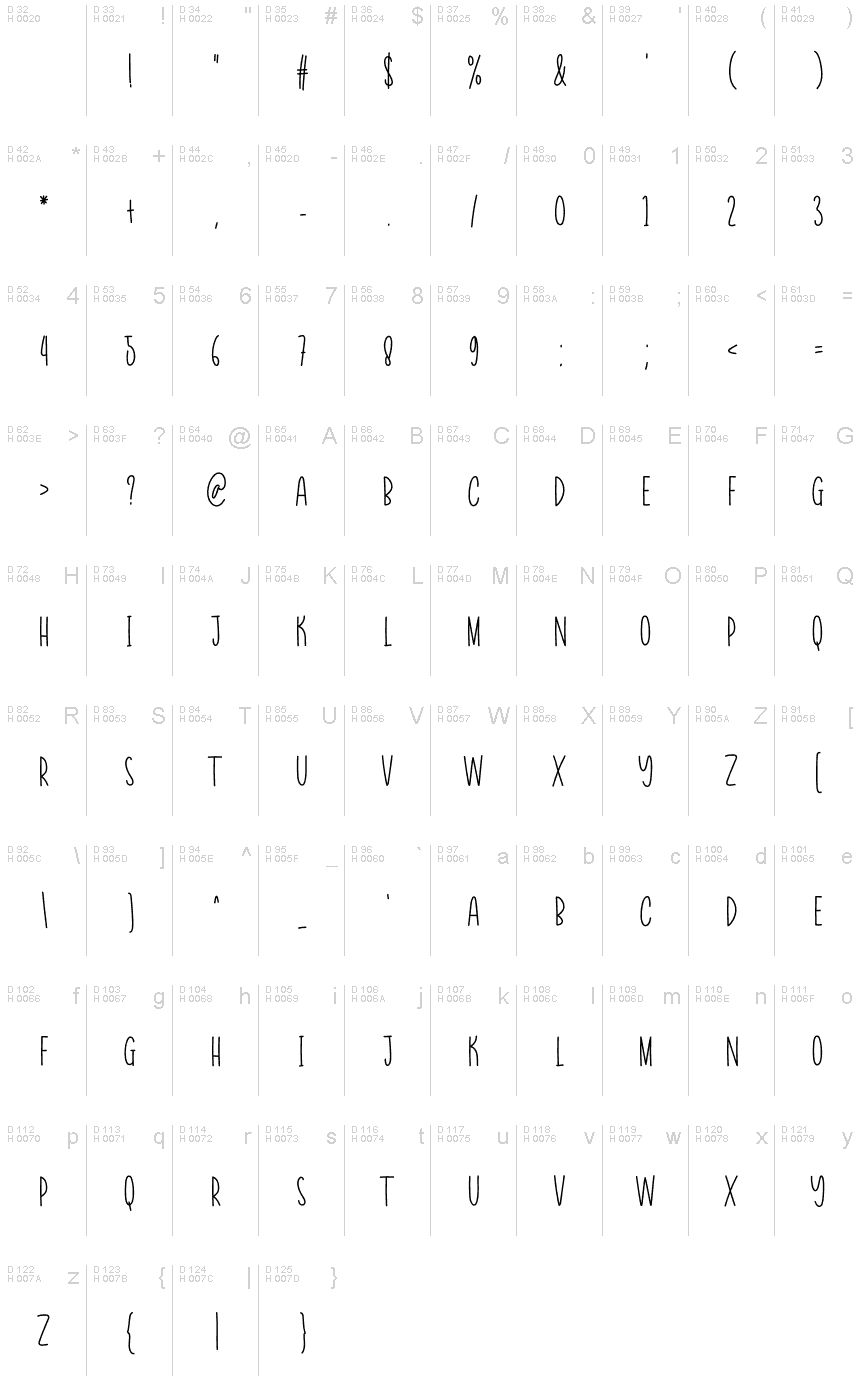
Simple And Minimalis
Simple and Minimalis, a whimsical creation by Scratchones, is a light-weight handwritten font with a hint of comic flair. Its extra-condensed width adds a touch of uniqueness to your projects.
Ideal for creating playful and lively designs, this font is perfect for children's books, greeting cards, and party invitations. Its fun and blockletter style makes it suitable for creating eye-catching headlines or logos that demand attention.
With its all caps feature, Simple and Minimalis is ready to give your designs a cheerful and vibrant personality.
The latest style letters are perfect for wall displays, wedding invitations, social media post logos, advertisements, product packaging, product designs, labels, photography, watermarks, invitations, stationery, and any project that requires taste handwriting.
Ideal for creating playful and lively designs, this font is perfect for children's books, greeting cards, and party invitations. Its fun and blockletter style makes it suitable for creating eye-catching headlines or logos that demand attention.
With its all caps feature, Simple and Minimalis is ready to give your designs a cheerful and vibrant personality.
The latest style letters are perfect for wall displays, wedding invitations, social media post logos, advertisements, product packaging, product designs, labels, photography, watermarks, invitations, stationery, and any project that requires taste handwriting.